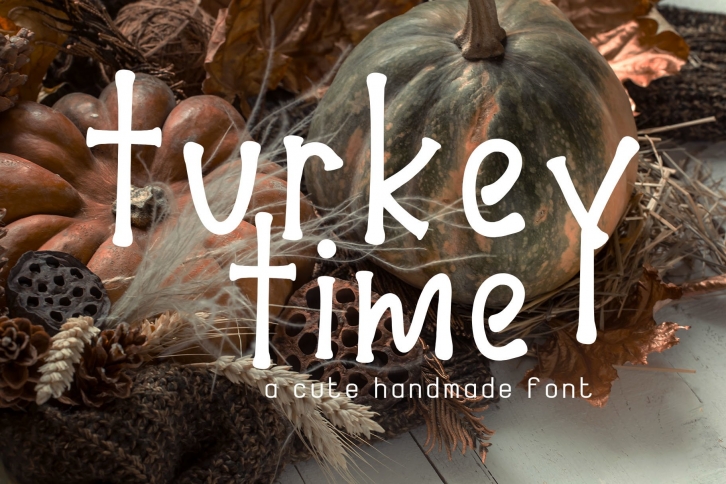
Turkey Time Handmade is a great font that was designed by Nadezda Gudeleva. Imagine the amount of combinations you can create using this font! The archive is 19.12 MB and it was released on December 4, 2020. Turkey Time Handmade looks beautiful on wedding invitations, greeting cards, logos, posters, labels, t-shirt designs, logos, business cards and is perfect for use in ink or watercolor works, fashion, magazines, packaging and food menus, children's books and more!